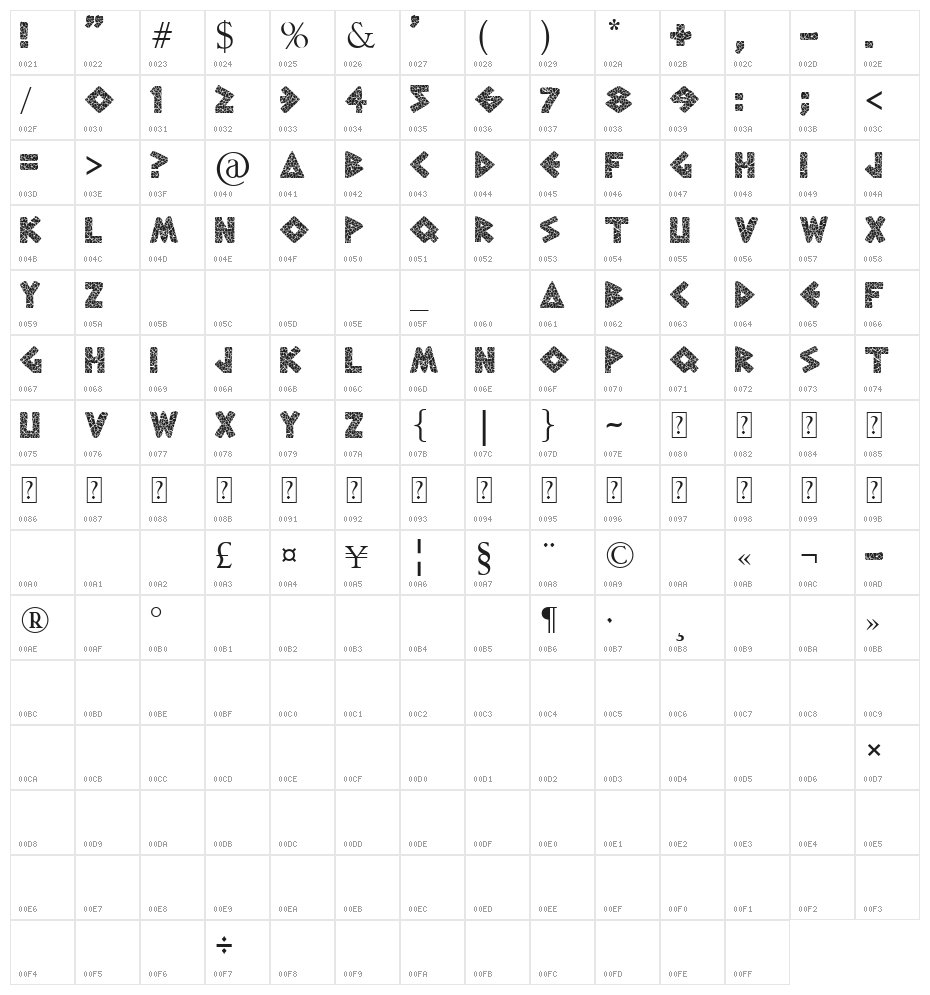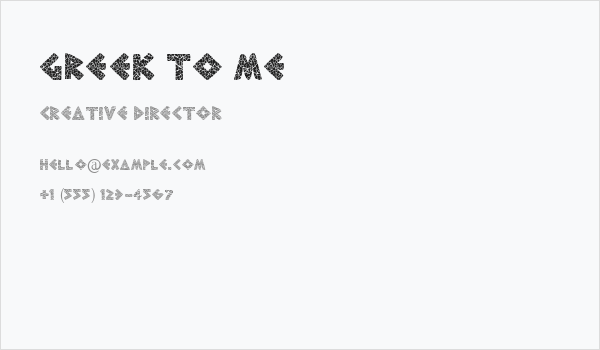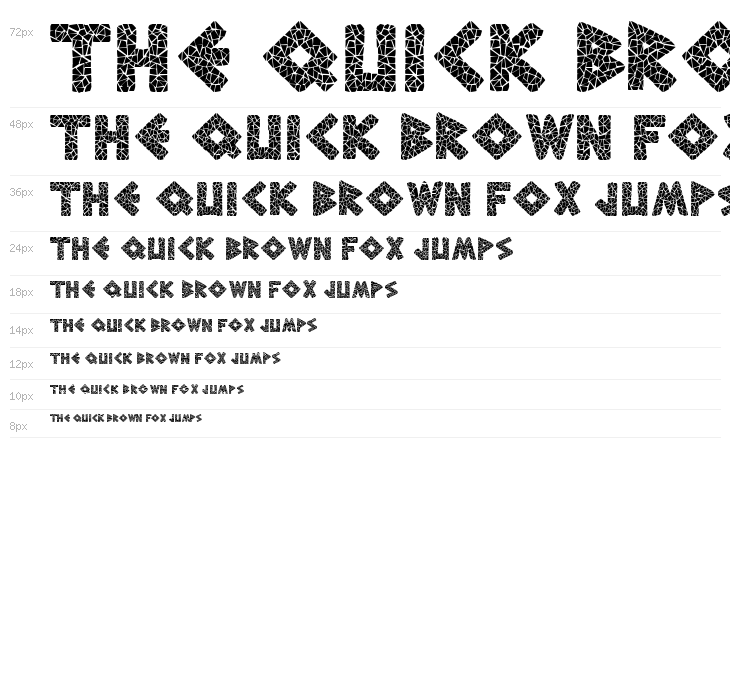
greek to me Font
greek to me Description
This font features a unique, mosaic-like pattern within each character, creating a textured and intricate appearance. The uppercase and lowercase letters maintain a consistent geometric style, with sharp angles and bold lines. The numbers and special characters follow the same design, ensuring uniformity across all elements. This font's distinctive look is reminiscent of ancient Greek art, making it ideal for projects that require a touch of historical or cultural flair. Its bold and decorative nature makes it stand out, perfect for eye-catching designs.
| Proposed Projects | Ideal for cultural event posters, historical themed designs, artistic branding, and decorative titles. |